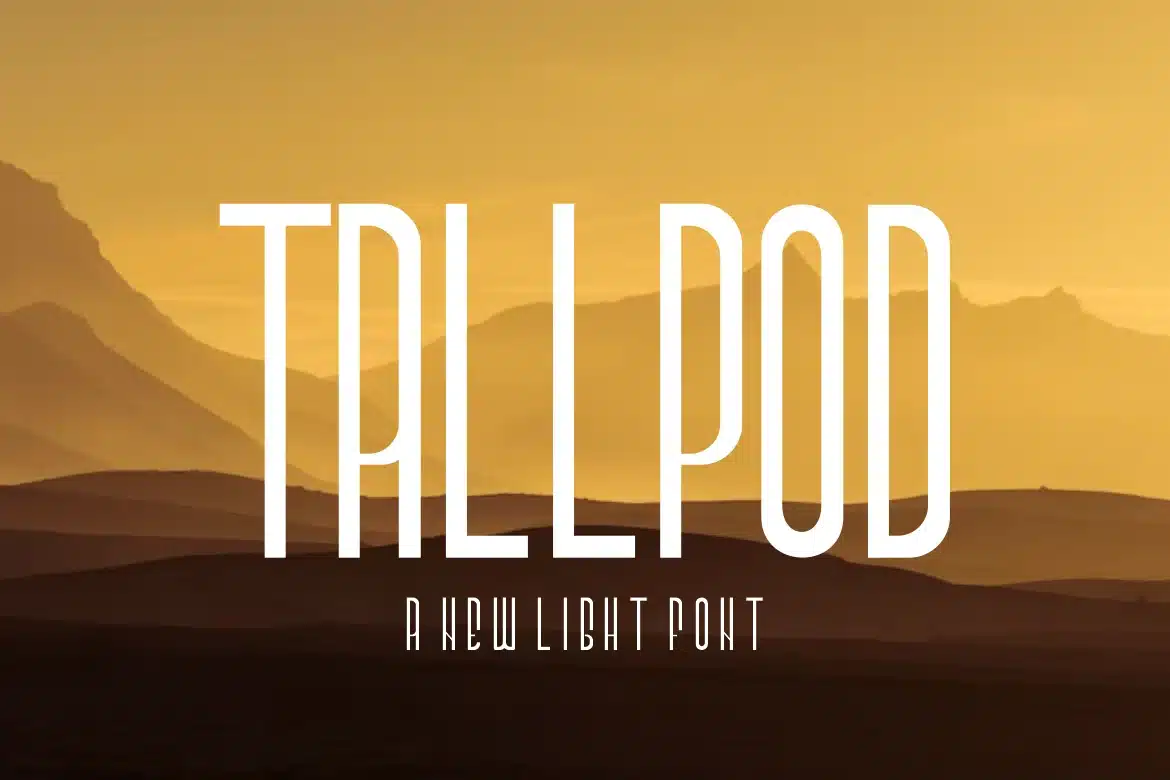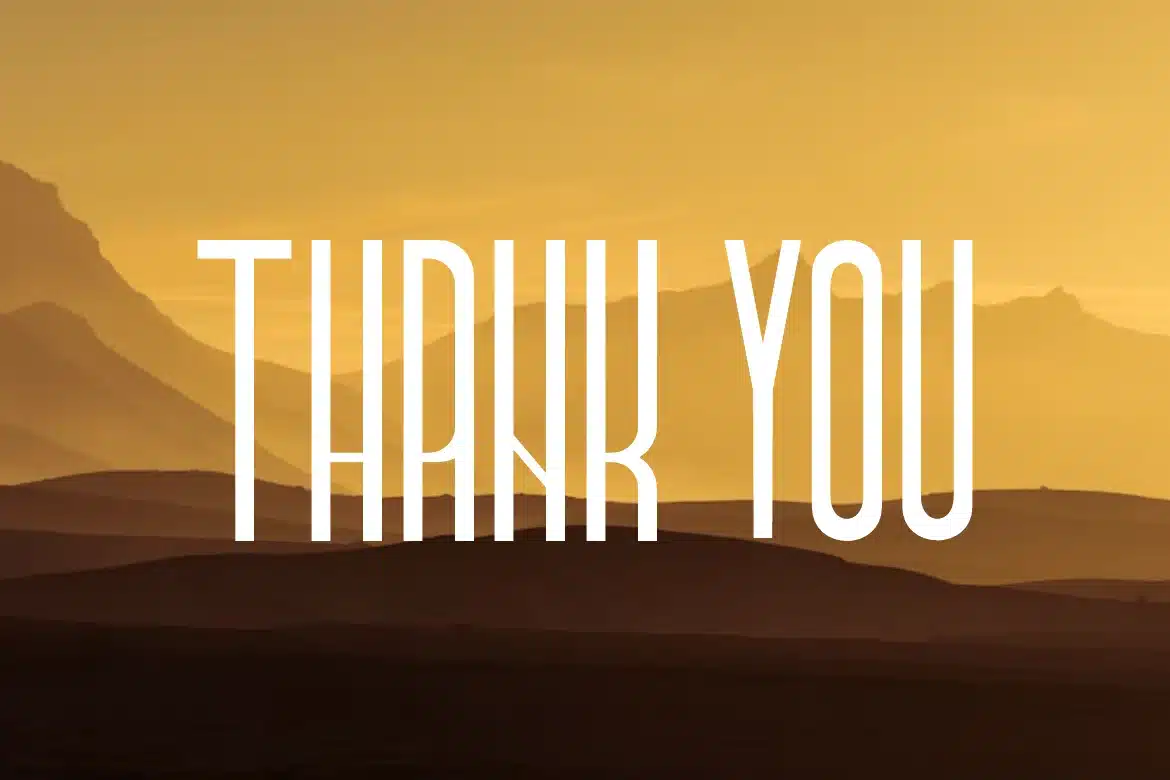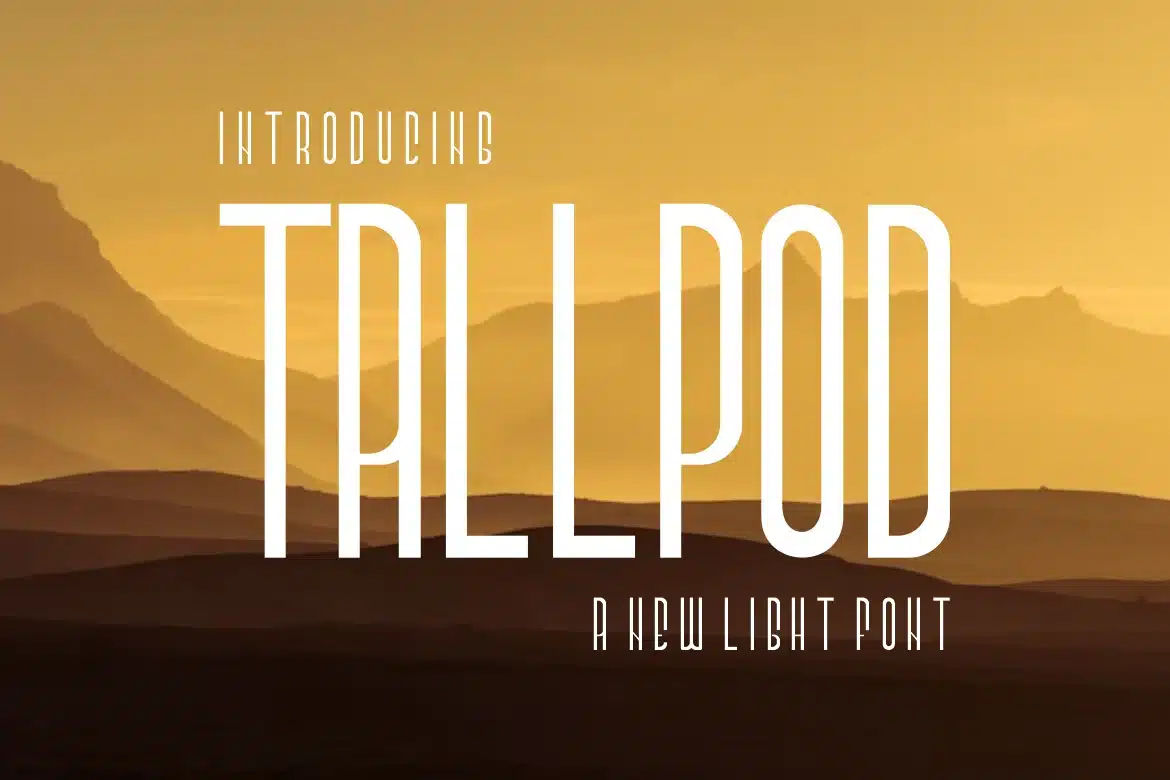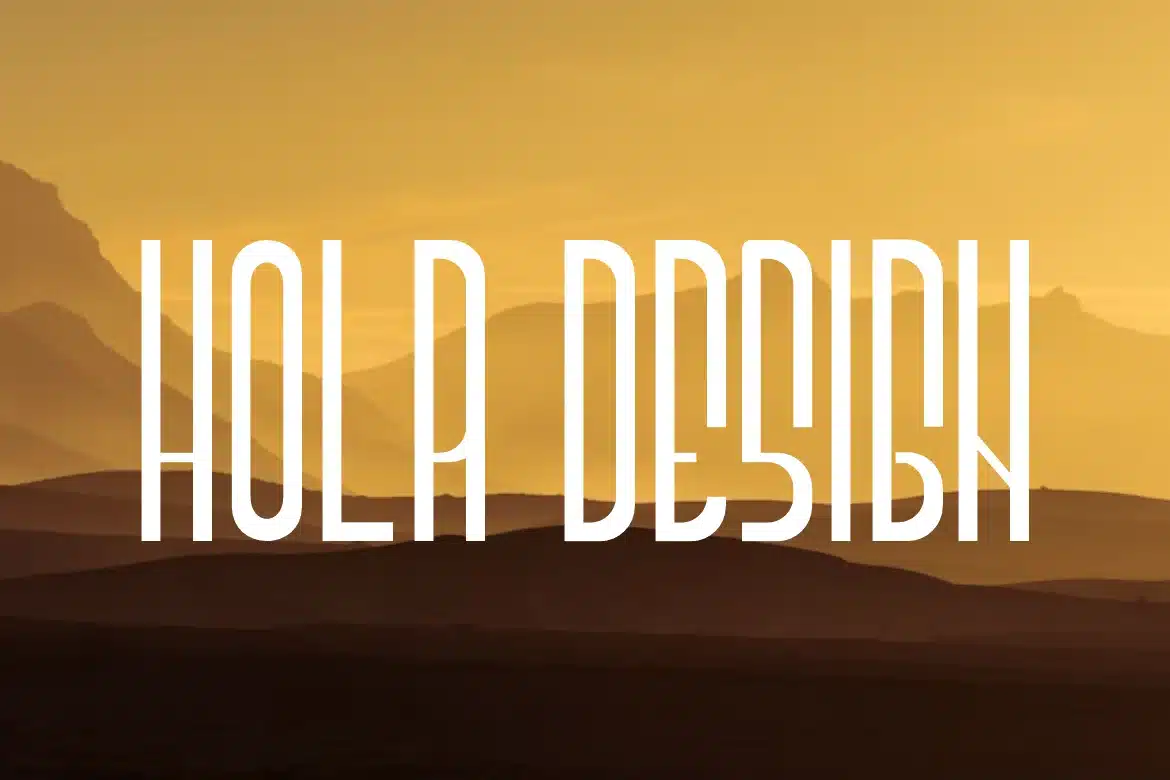
Tallpod Font
Tallpod Font Font is unique . Ready to use for your design like labeling, movie sceen, poster, movie title, gigs, album covers, logos, and much more.